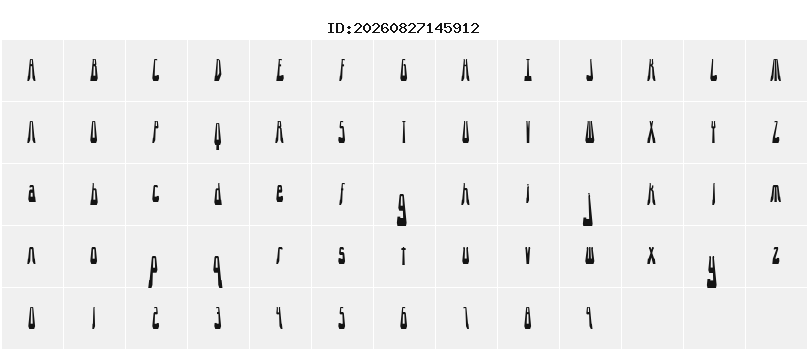
10.15 Saturday Night (BRK) Preview
• Font Name: 10.15 Saturday Night (BRK)
• Full Font Name: 10.15 Saturday Night -BRK-
About 10.15 Saturday Night (BRK).ttf
10.15 Saturday Night (BRK).ttf is a modern, elegant sans-serif font designed for ultimate readability and visual harmony. Perfect for branding, headlines, web design, and print materials.